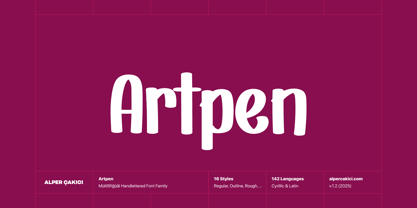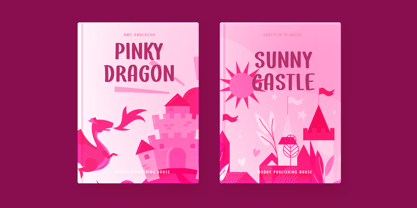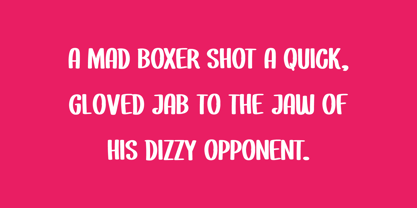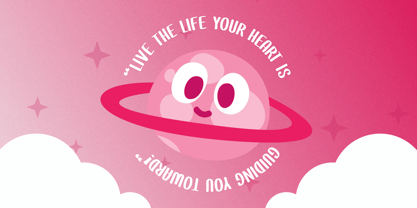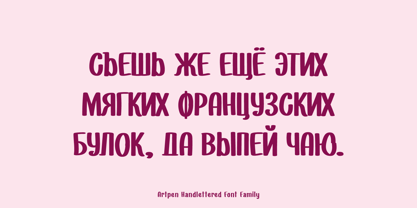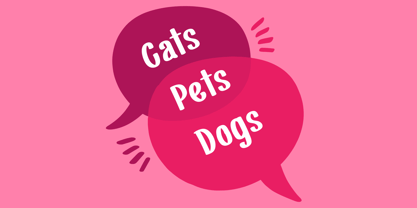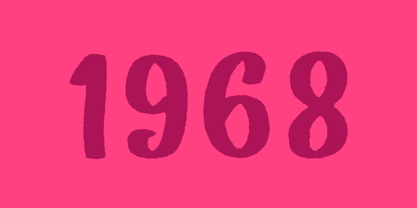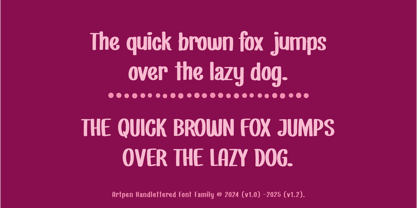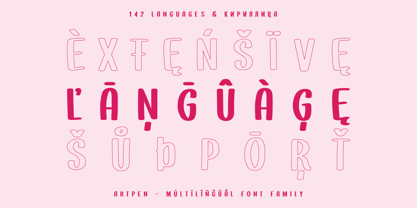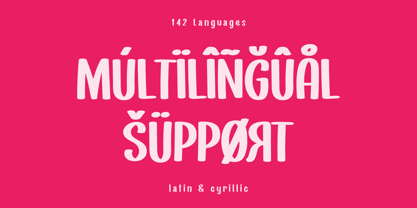
Artpen
by AlperCakici
The Artpen Font Family was designed by Alper Çakıcı and published by AlperCakici. Artpen contains 16 styles and family package options. More about this family
Artpen Handwritten Font Family is a contemporary handmade typeface that captures the authentic charm of real handwriting with professional polish. Designed for versatility and creativity, Artpen includes 16 styles — Regular, Outline, Rough, Rounded, Rounded Outline, Rounded Rough, and their matching Italics — giving you endless options to express your ideas with personality and warmth. Each style is meticulously crafted with impeccable kerning and smooth letterforms, delivering natural rhythm and effortless readability across print and digital projects. From posters and logos to packaging, children’s books, and social media graphics, Artpen brings a friendly, approachable feel to any design. With full Cyrillic and multilingual support, Artpen Handwritten Font Family ensures seamless communication across languages while maintaining its distinctive handmade essence. It supports 142 Languages. Whether you’re aiming for playful, casual, or artistic, Artpen blends classic proportions with a modern handwritten aesthetic, making it a perfect choice for designers seeking authenticity and charm.
Designers: Alper Çakıcı
Foundry: AlperCakici